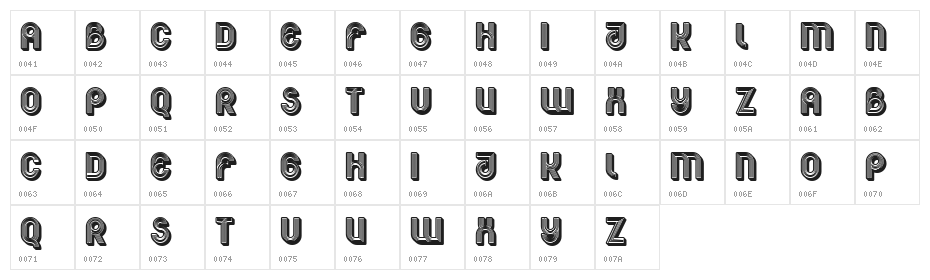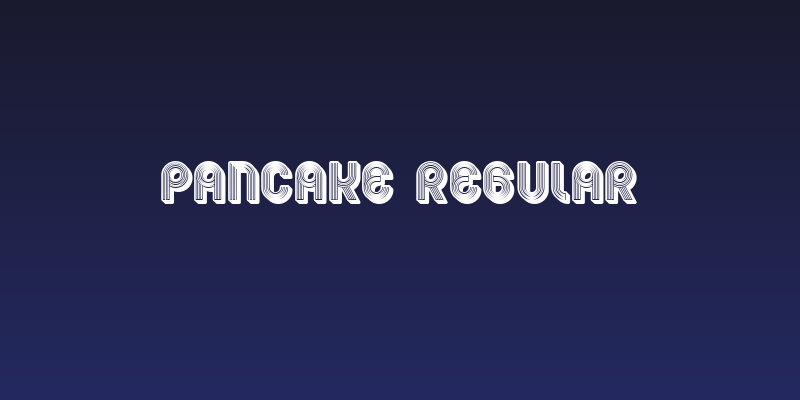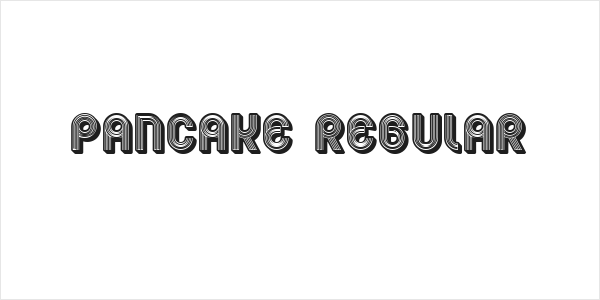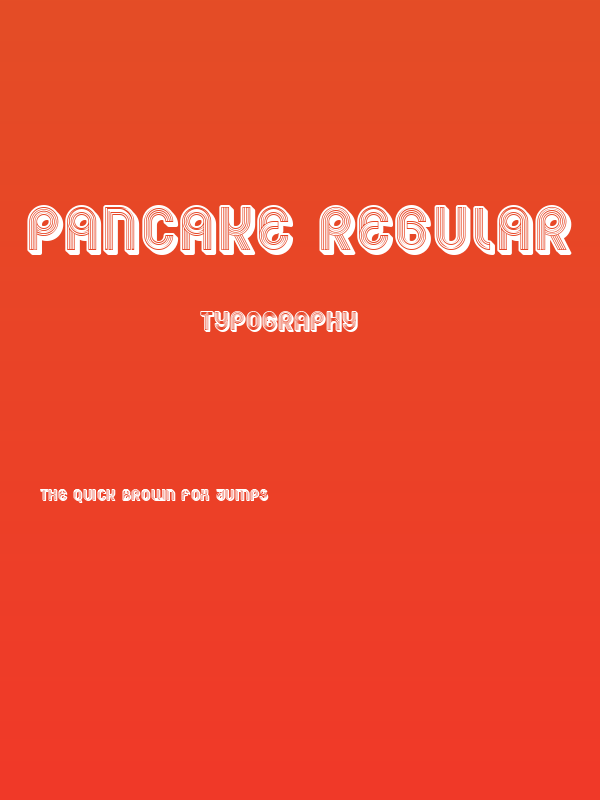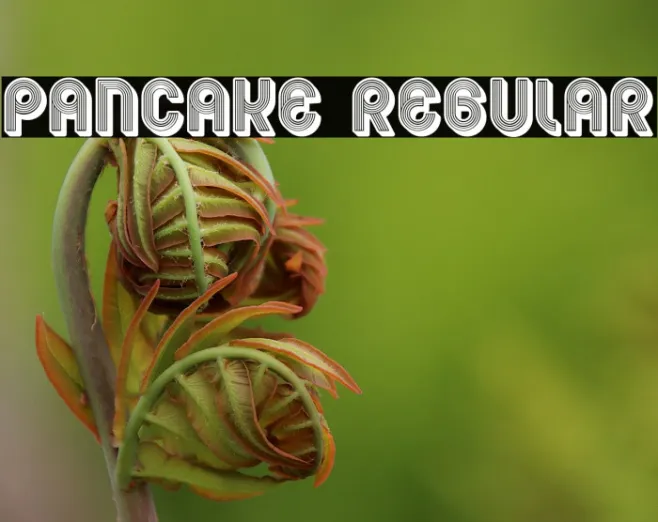
Pancake Regular Font
Pancake Regular Description
This font features a bold and decorative style with a unique layered effect that creates a sense of depth and dimension. Each character is composed of multiple parallel lines that form a cohesive and eye-catching design. The font's structure is geometric, with rounded edges that soften its overall appearance. It is highly stylized, making it ideal for projects that require a strong visual impact. The consistent line thickness throughout the characters adds to its boldness, while the spacing between the lines provides a sense of openness and clarity.
| Proposed Projects | Ideal for posters, logos, headlines, and branding materials that require a striking and memorable visual element. |